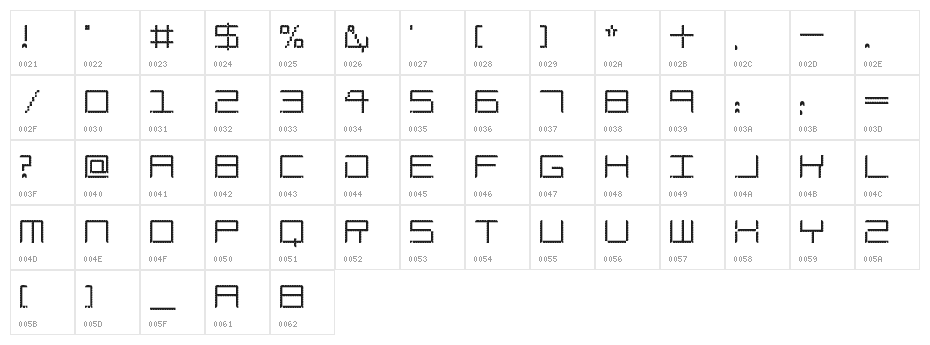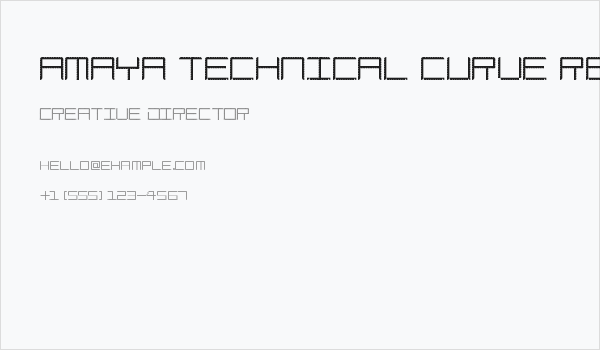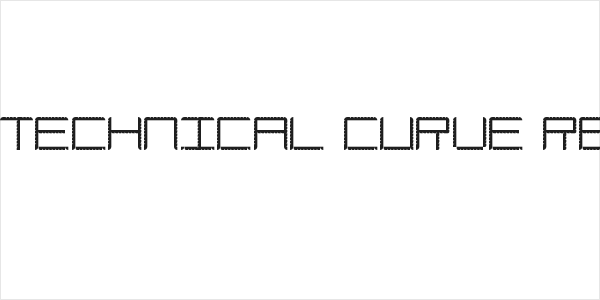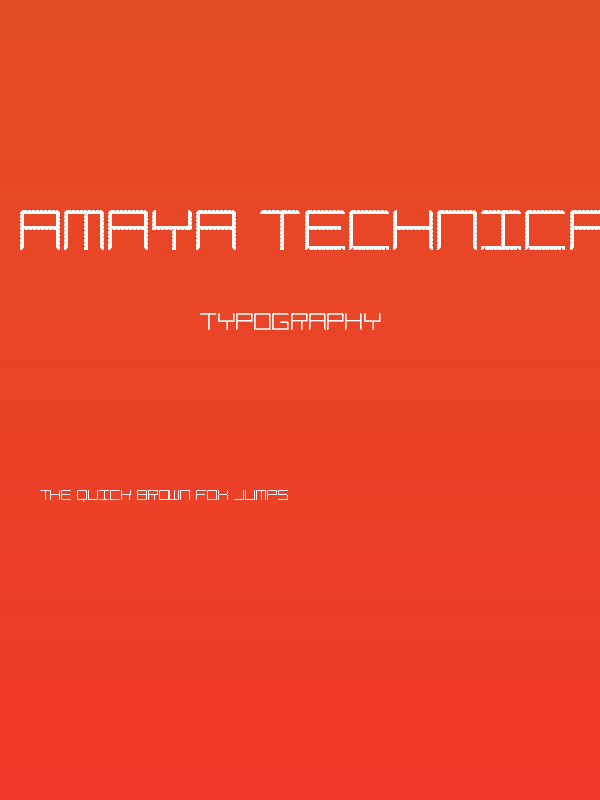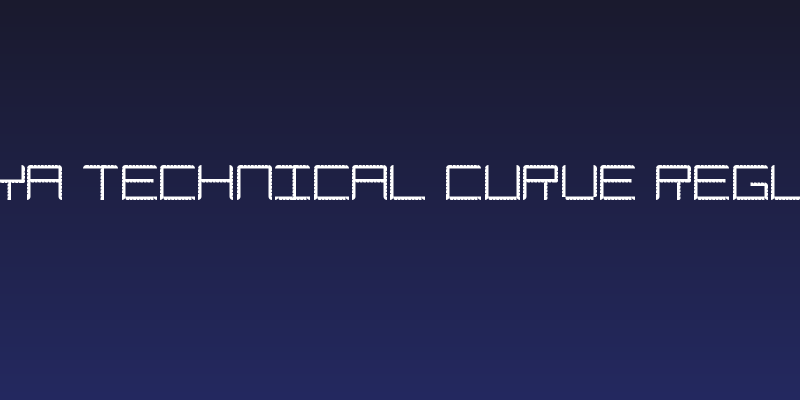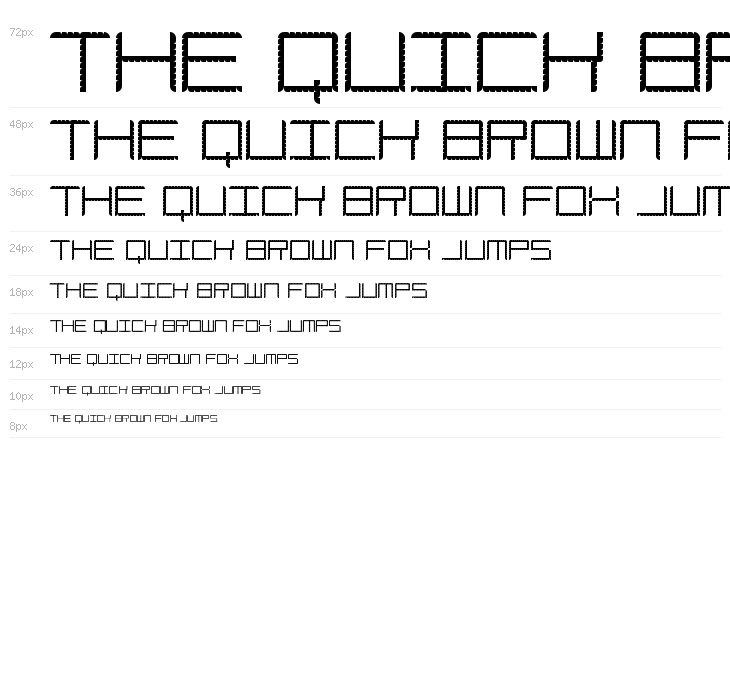
Amaya Technical Curve Regular Font
Amaya Technical Curve Regular Description
This font features a unique, technical design with a distinct curve pattern that gives it a futuristic and digital appearance. The characters are constructed with a series of small, connected segments that create a pixelated effect, reminiscent of early digital displays or technical diagrams. The uppercase and lowercase letters maintain a consistent height, emphasizing uniformity and precision. The numbers and special characters follow the same design principles, ensuring a cohesive look across all glyphs. This font's geometric and structured form makes it ideal for projects that require a modern, tech-inspired aesthetic.
| Use Case | Logos, Headlines, Digital interfaces |
| Proposed Projects | Ideal for tech-related branding, digital interfaces, video game design, and futuristic-themed posters. |